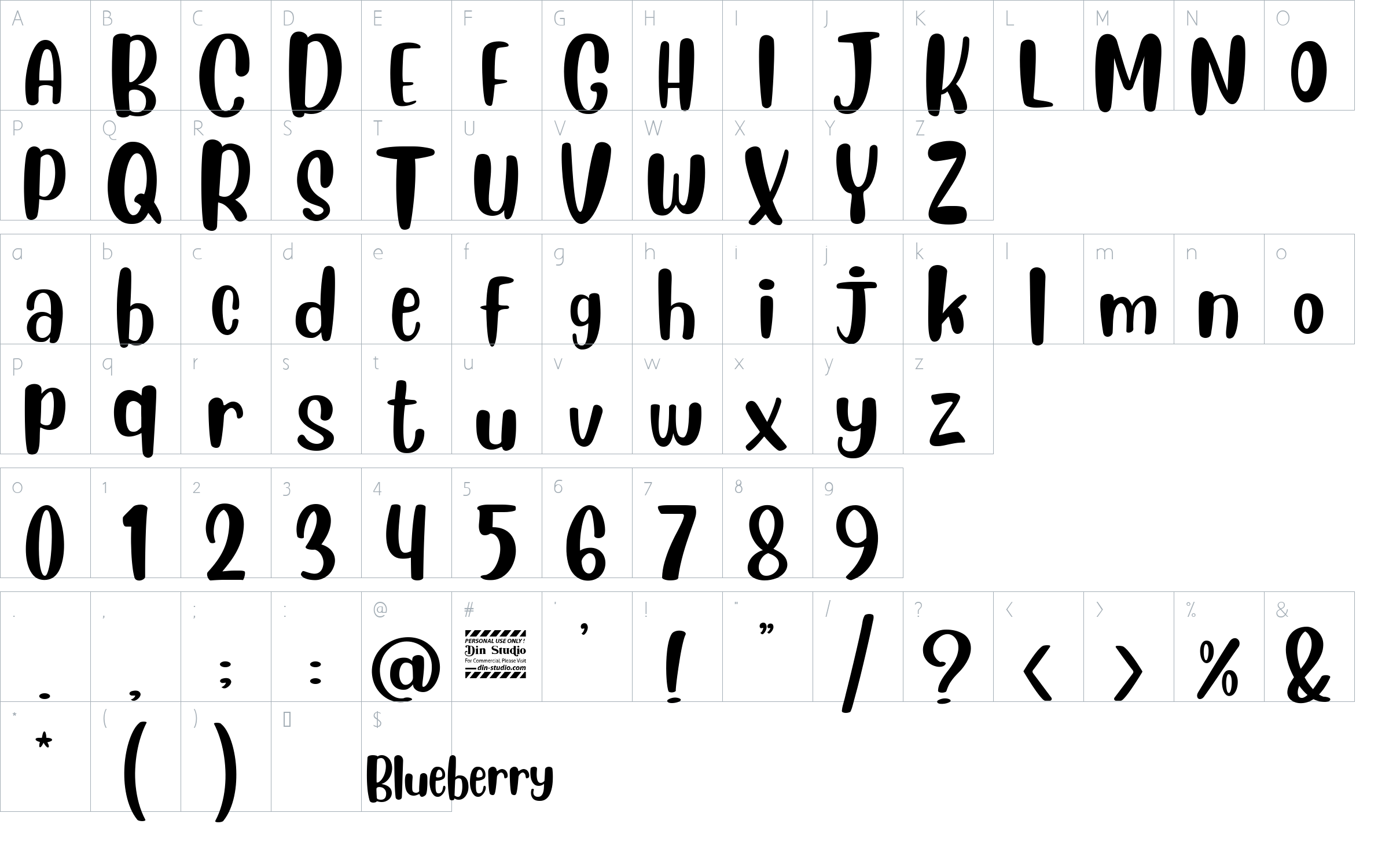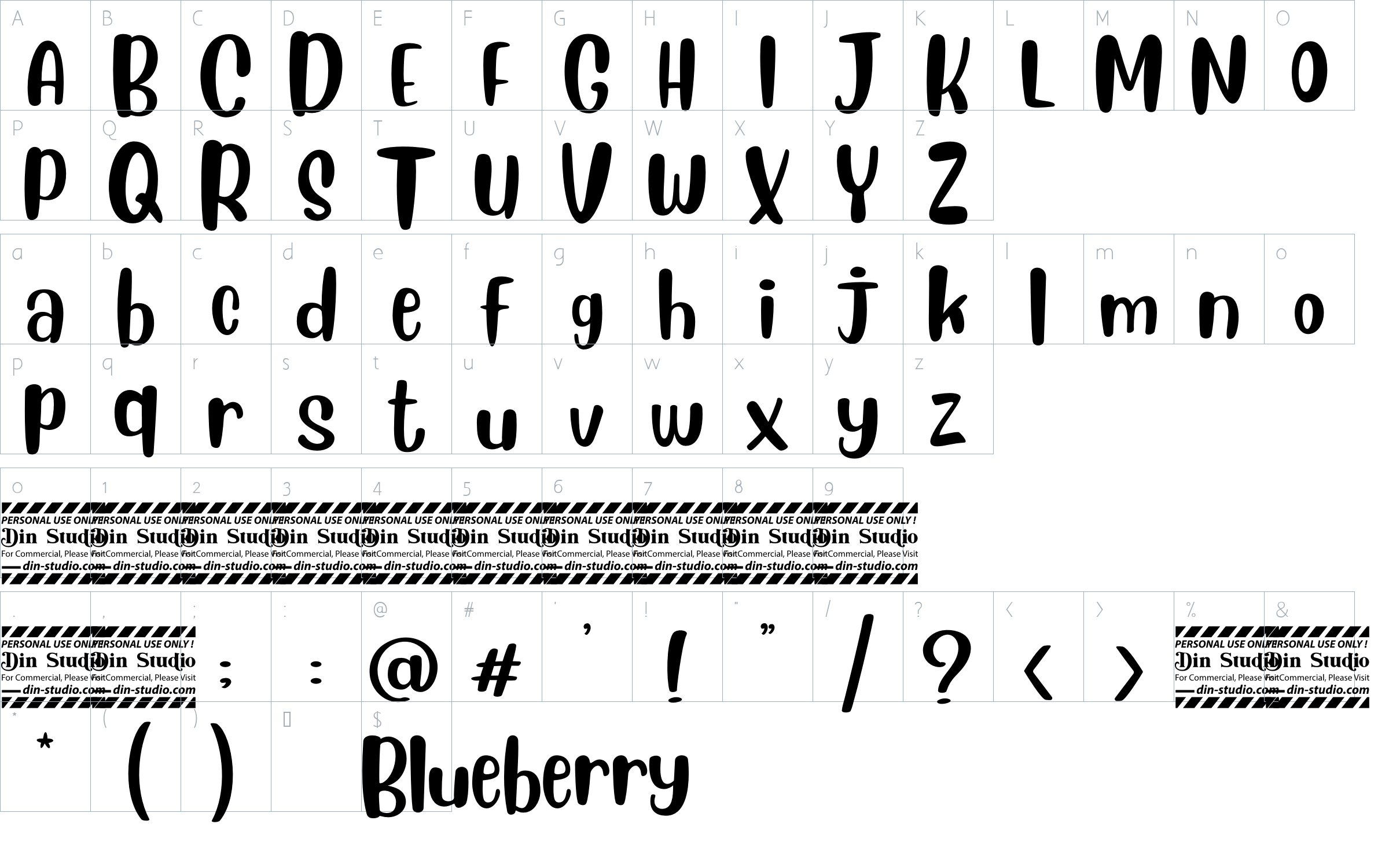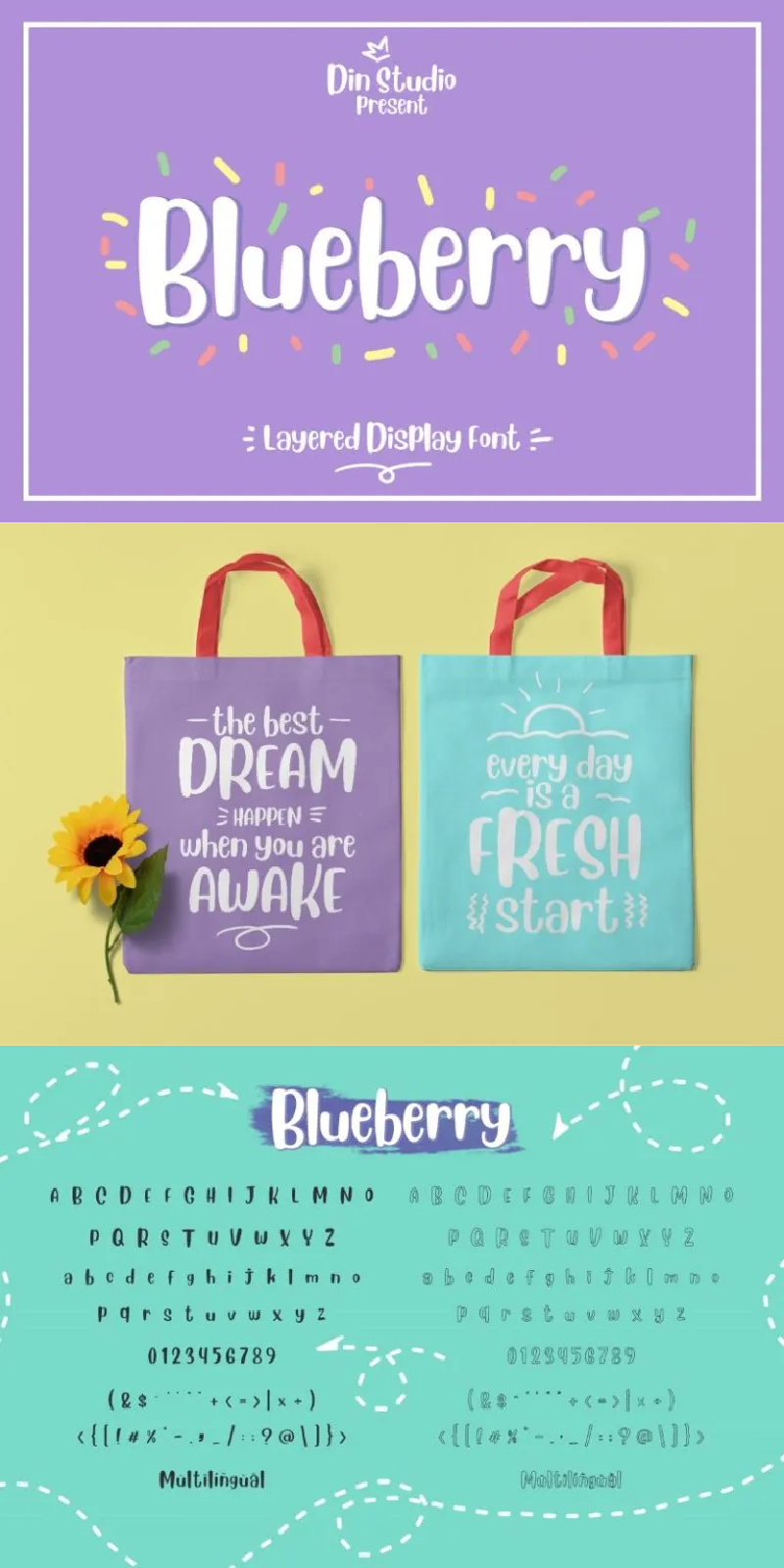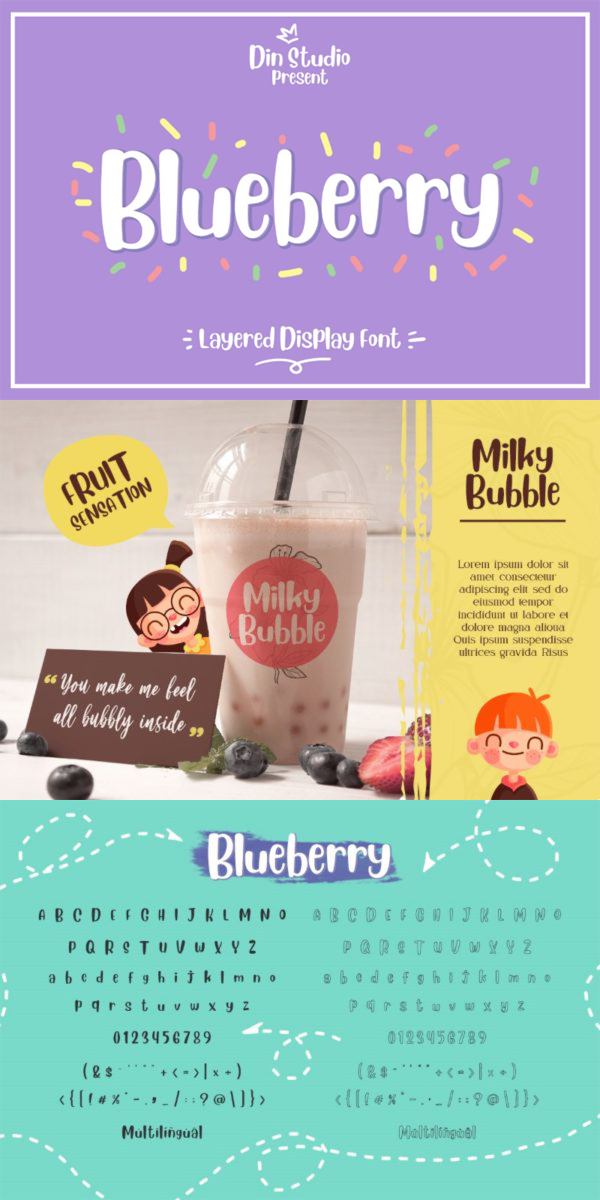
Blueberry Font
About Blueberry
Blueberry Display Font is a cute layered display font created by Din Studio. It suits your design projects especially in brandings, packagings, letterings, and so on. This font contains uppercase and lowercase characters, numerals, and a large range of punctuations. Blueberry makes your latest project awesome.